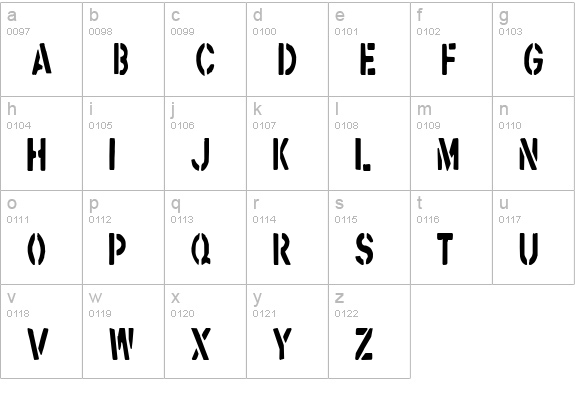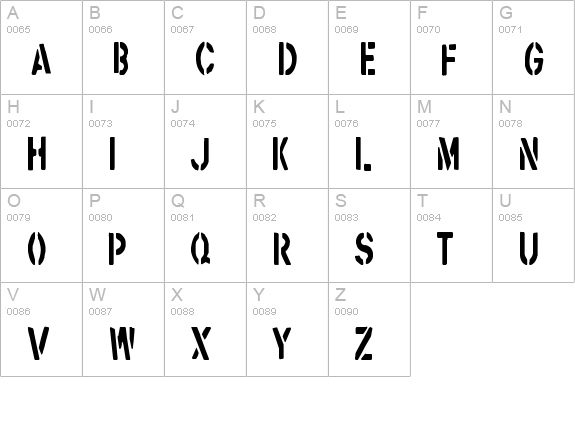
Foot Locker Font Details
Introducing Foot Locker font, a sleek and modern typeface that exudes sophistication and style. With its clean lines and contemporary design, Foot Locker font is perfect for a wide range of projects, from branding to advertising to social media graphics. This versatile font is ideal for creating eye-catching headlines, elegant logos, and stylish text overlays. What sets Foot Locker font apart is its unique blend of classic elegance and modern flair. Its bold yet refined letterforms make a strong statement while maintaining a sense of sophistication. Whether you're looking to add a touch of class to your next design project or simply want to elevate your typography game, Foot Locker font has got you covered. Best of all, Foot Locker font is free to download at FontsMarket.com. This means you can access this premium font without breaking the bank, making it a valuable addition to your font collection. Don't miss out on the opportunity to enhance your designs with the elegance and style of Foot Locker font. Download it today and take your projects to the next level.